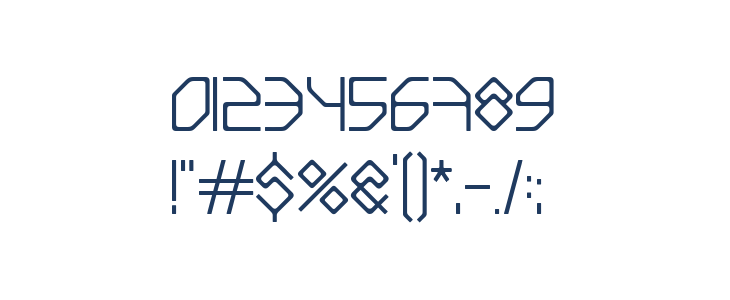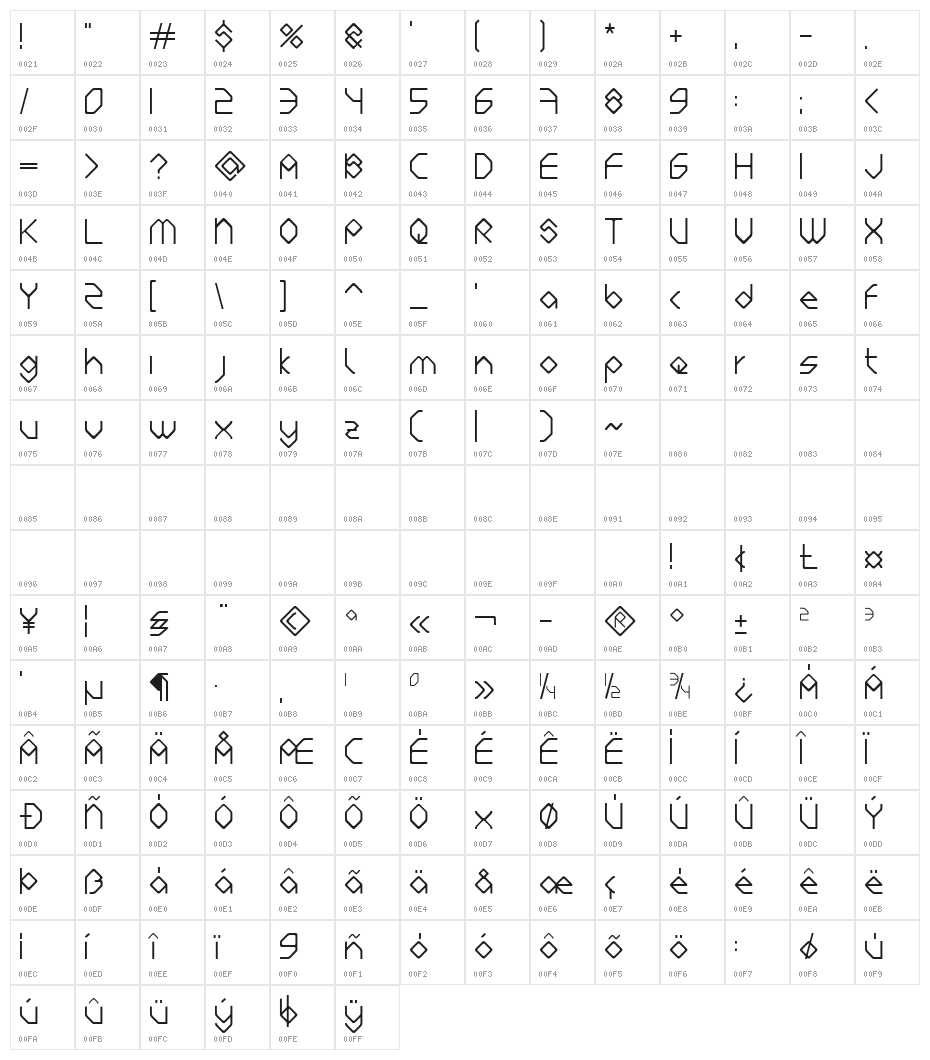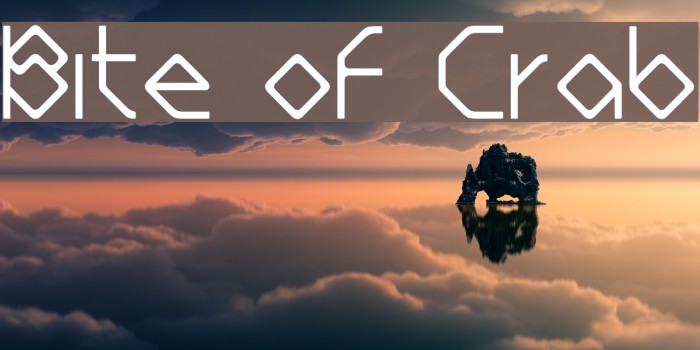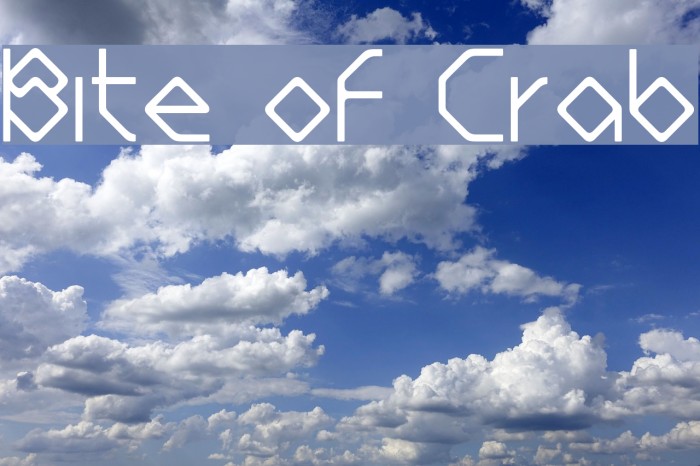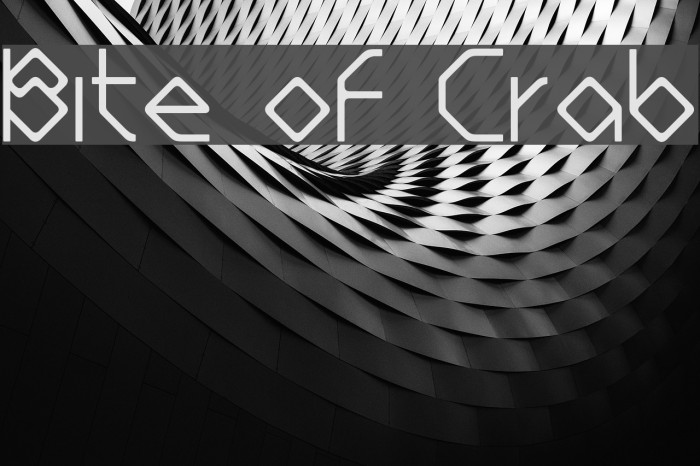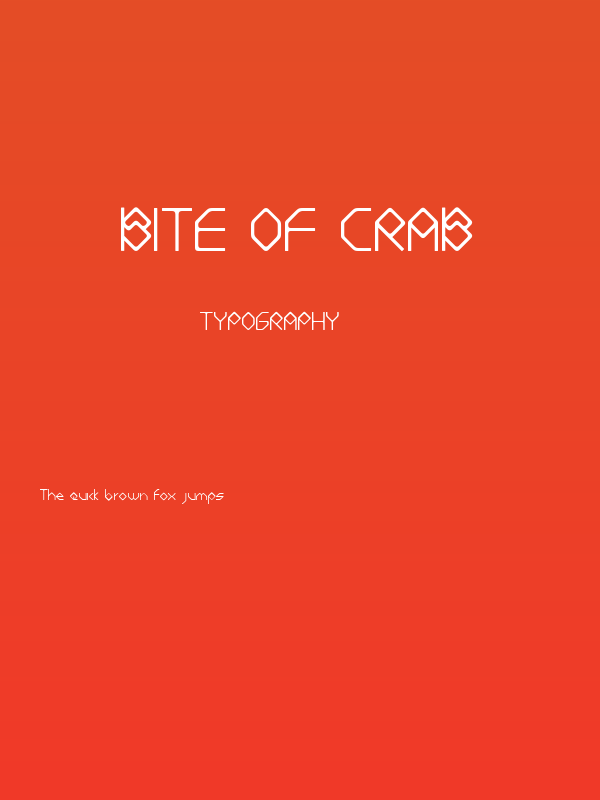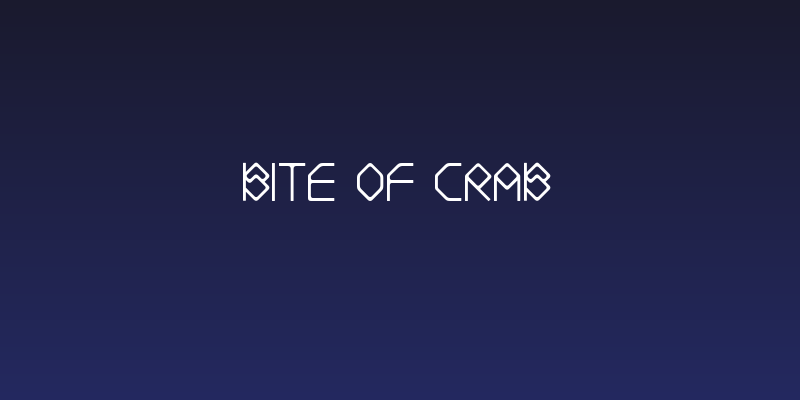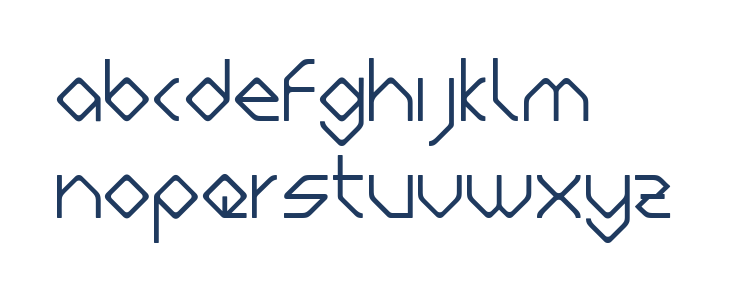
Bite of Crab Font
Bite of Crab Description
This font features a geometric and angular design, characterized by its sharp edges and clean lines. The uppercase and lowercase letters maintain a consistent height, creating a uniform appearance. The numerals and special characters follow the same angular style, ensuring cohesion throughout. The font's unique structure gives it a futuristic and modern feel, making it stand out in digital and print media. Its distinct style is both eye-catching and readable, suitable for various creative applications.
| Proposed Projects | Ideal for tech-related branding, futuristic posters, video game interfaces, and modern art projects. |